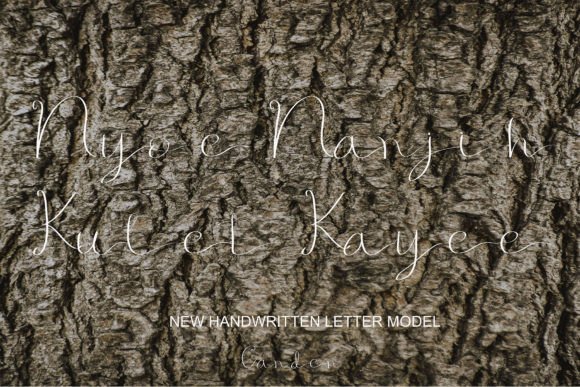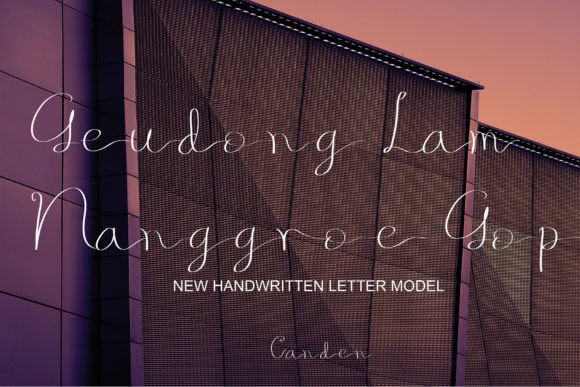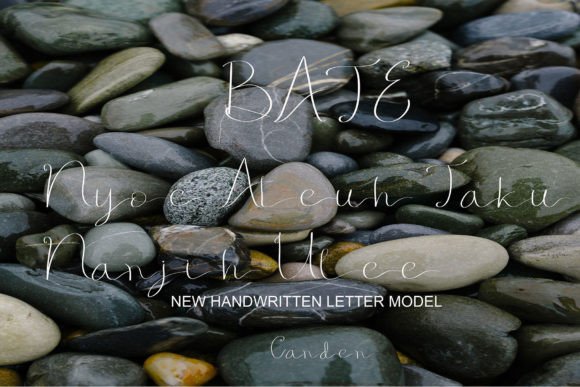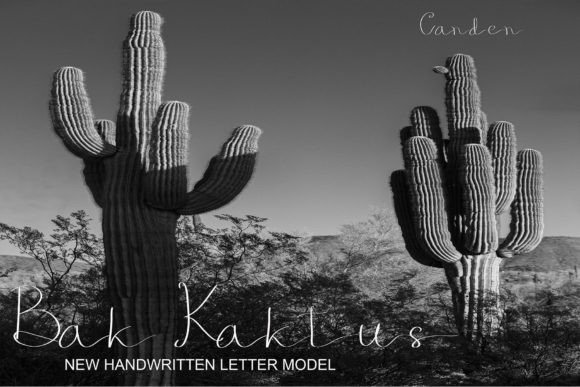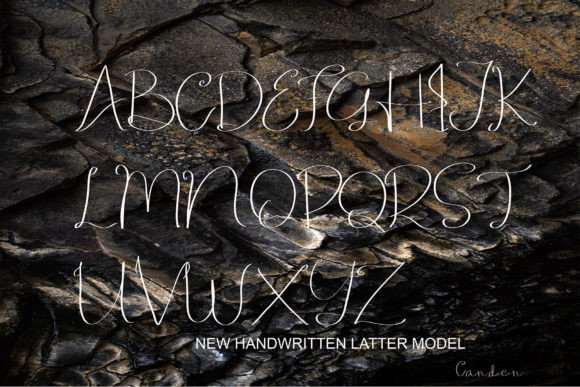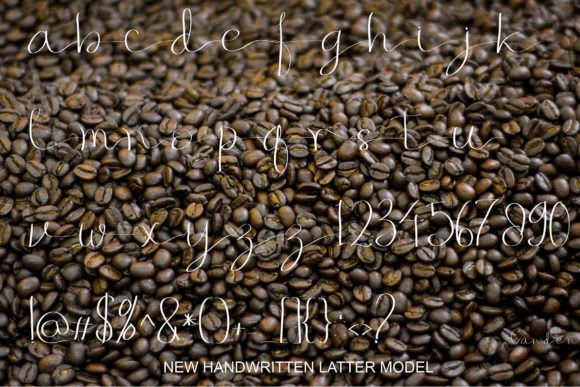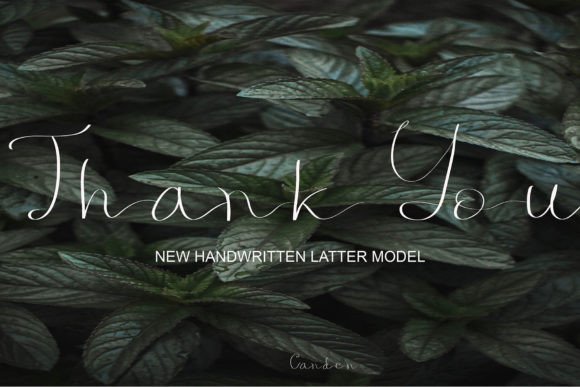
Aktuci Fantasi Font
About Aktuci Fantasi Font
“Aktuci Fantasi” stands out as a font meticulously crafted by hand, utilizing the precision of a pen tablet. Its simplicity is a key feature, rendering it versatile for applications ranging from websites to advertising. Despite its unassuming appearance, this font exudes a cool and stylish vibe, making it an ideal choice for various design contexts.
This font’s uniqueness lies in its handcrafted origins, a result of the intricate process of being penned with a tablet. The careful strokes and intentional design choices contribute to a simplicity that doesn’t compromise on visual appeal. The font’s minimalist nature makes it adaptable to different platforms and purposes, ensuring a seamless integration into web designs and advertising materials.
In the world of digital communication, Aktuci Fantasi stands as a testament to the idea that simplicity can indeed be cool and stylish. The carefully curated design, born from the strokes of a pen tablet, gives it a contemporary aesthetic that resonates with modern design sensibilities. It’s a font that effortlessly blends simplicity with an inherent sense of sophistication.
Whether you’re creating a sleek website or designing eye-catching advertisements, Aktuci Fantasi proves to be a reliable choice. Its cool and stylish demeanor adds a touch of modernity to the text, ensuring that your content not only communicates effectively but also does so with a sense of flair.
Imagine implementing Aktuci Fantasi in a website’s clean interface or using it to highlight key messages in an advertising campaign. Its versatility allows it to enhance various design elements, providing a consistent and stylish visual identity.
In essence, Aktuci Fantasi is more than just a font; it’s a tool for enhancing visual communication. Handwritten with a pen tablet, its simplicity, combined with a cool and stylish aura, makes it a valuable asset for anyone looking to infuse their digital projects with a touch of modern sophistication. Whether you’re a web designer, advertiser, or creative enthusiast, Aktuci Fantasi is poised to elevate your textual content with its unique blend of simplicity and style.